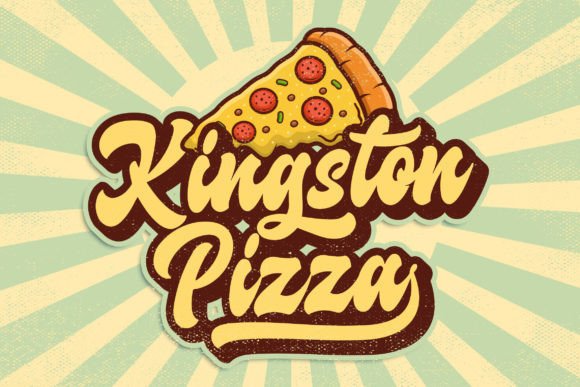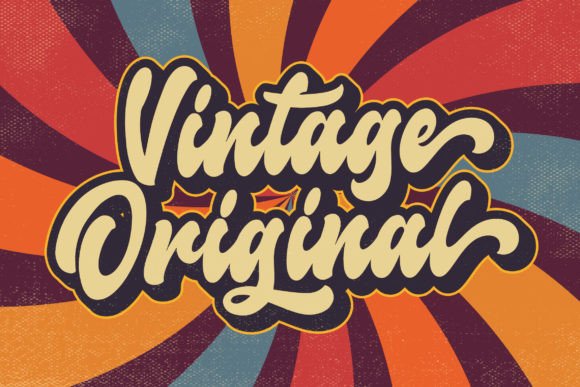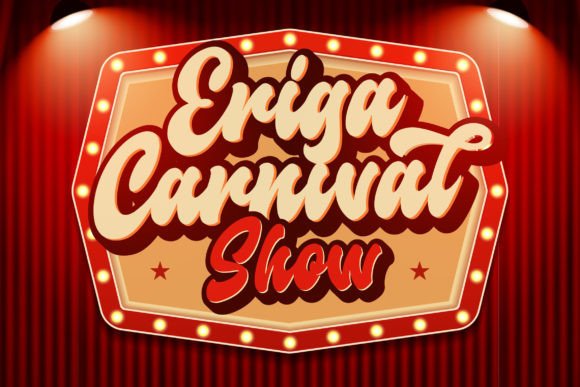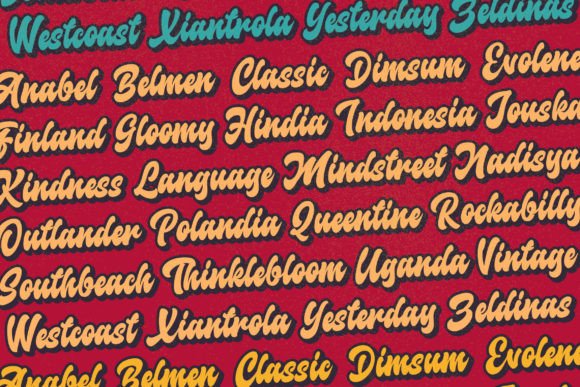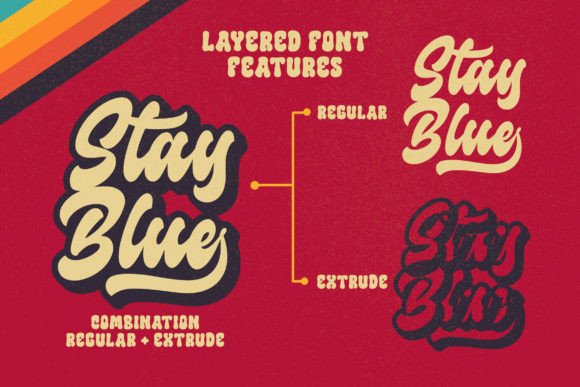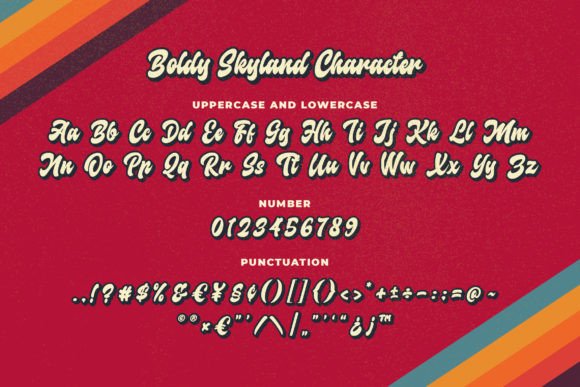
Introducing Boldy Skyline Font: A Playfully Nostalgic Typeface for Your Design Projects
Are you on the hunt for a font that exudes a sense of nostalgia and vintage charm? Look no further than Boldy Skyline, a beautifully crafted typeface that is sure to elevate your design projects to new heights. With its unique blend of playfulness and sophistication, Boldy Skyline is the perfect choice for designers and crafters looking to add a touch of classic elegance to their work.
A Font that Feels Like a Blast from the Past
Boldy Skyline is a font that feels playfully nostalgic, transporting you back to a bygone era of classic design and timeless charm. Its vintage aesthetic is reminiscent of old-school signage, posters, and advertisements, making it an ideal choice for projects that require a retro vibe. Whether you’re working on a branding campaign, wedding design, or simply looking for a unique font for your craft projects, Boldy Skyline is sure to deliver.
Elegant and Versatile: Perfect for a Wide Range of Design Projects
One of the standout features of Boldy Skyline is its incredible versatility. This font is designed to be used across a wide range of design projects, from branding and headings to wedding designs, invitations, signatures, logos, labels, and much more. Its elegant and sophisticated design makes it perfect for projects that require a touch of class and sophistication, while its playfulness ensures it remains approachable and fun.
Key Features of Boldy Skyline Font
- Playfully nostalgic design: Boldy Skyline boasts a unique vintage aesthetic that is sure to transport your designs back in time.
- Elegant and sophisticated: With its clean lines and classic design, Boldy Skyline is perfect for projects that require a touch of elegance and refinement.
- Incredibly versatile: Use Boldy Skyline across a wide range of design projects, from branding and headings to wedding designs and craft projects.
- Perfect for headlines and titles: Boldy Skyline is designed to make a statement, making it perfect for headlines, titles, and other display text.